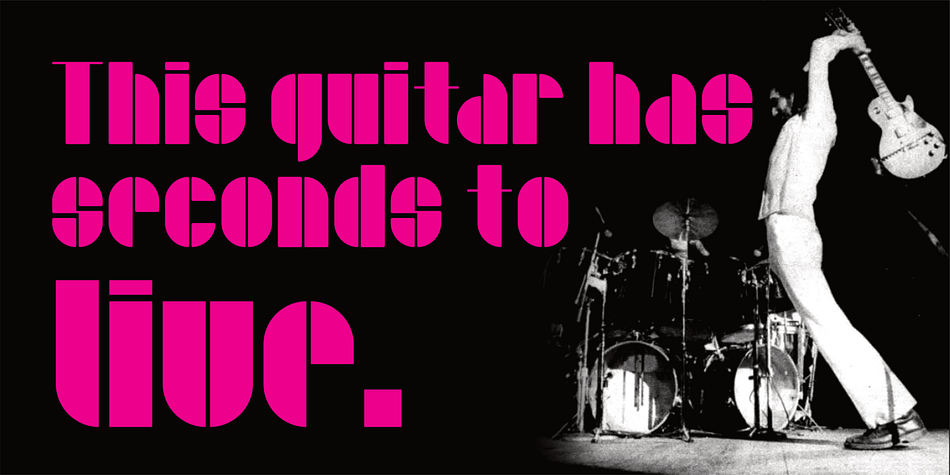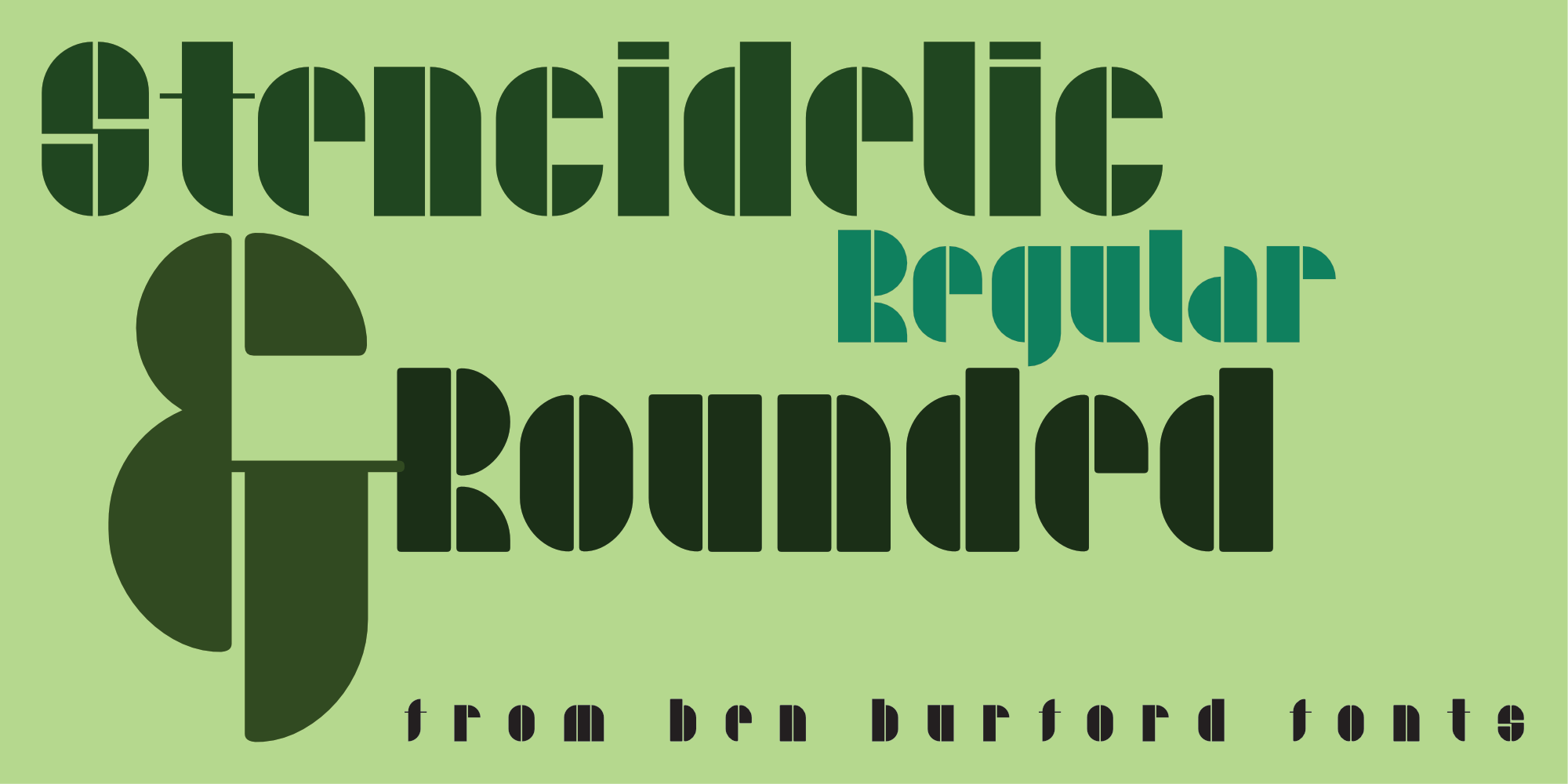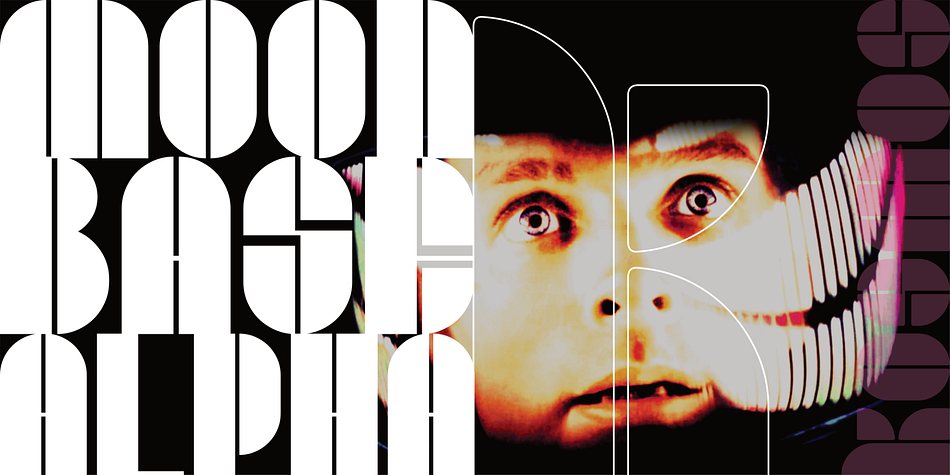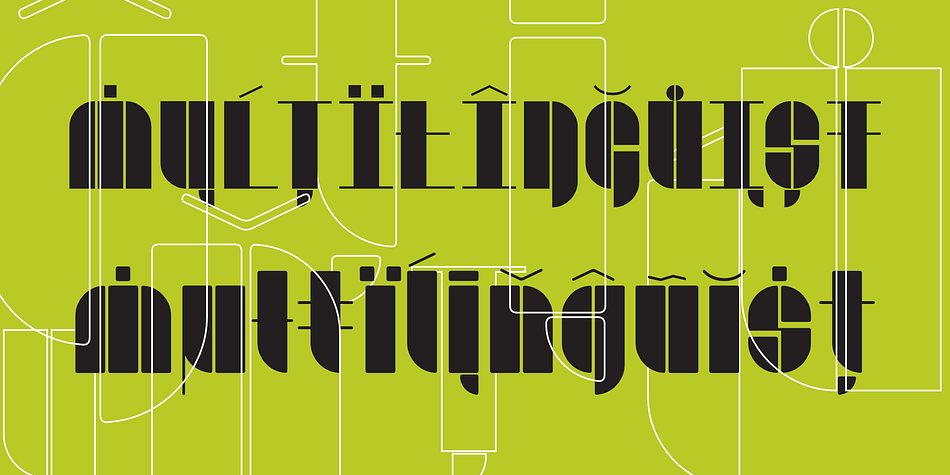
Stencidelic
Designed by Ben Burford, Stencidelic is a stencil font family. This typeface has two styles and was published by Ben Burford Fonts.
Stencidelic is a slightly extreme stencil font, its roots from a classic military stencil but taking it to a limit, giving the letterforms a stylistic look and feel. it also takes inspiration from the UK ‘Mod’ Subculture from gig and music festival flyers and posters, with its nod to 1960’ & 1970’s Sci fi also it covers lots of bases to make an impactful statement.